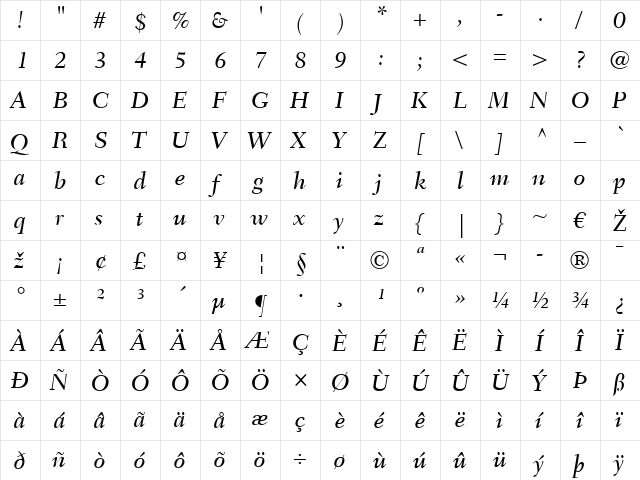
Fairfield LT Medium Italic Font Preview
Design Context for Fairfield LT Medium Typeface
Fairfield LT Medium is a composed and adaptable typeface that performs quietly and consistently across a wide range of design contexts. The dynamic lean of this cut emphasises speed and emphasis in any layout. Its slender proportions lend an understated elegance to any composition.